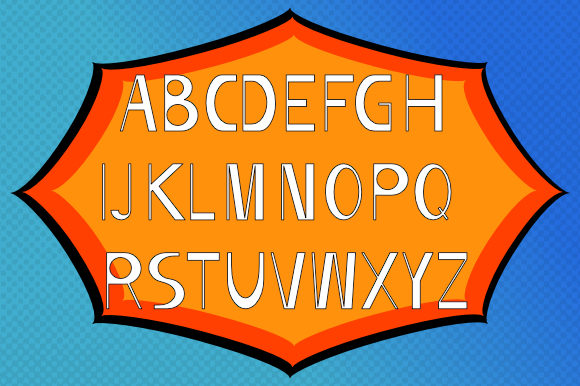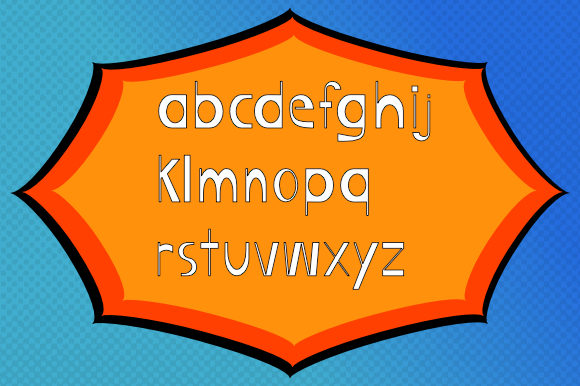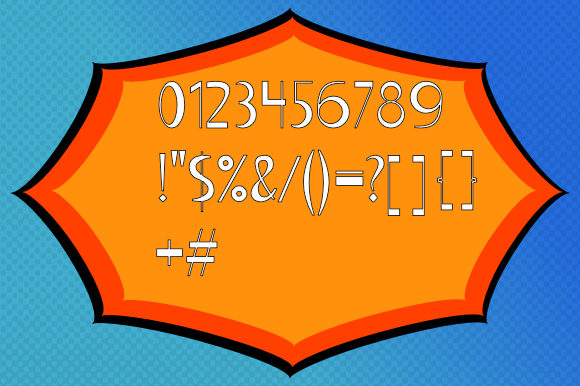
Introducing Bigboy Font: The Ultimate Display Font for Creative Projects
Are you tired of using the same old fonts for your creative projects? Look no further than Bigboy Font, a bold and fun display font that’s sure to add a unique touch to your designs. With its kooky and round charm, Bigboy Font is the perfect choice for designers and crafters looking to make a statement.
The Unique Characteristics of Bigboy Font
Bigboy Font is a one-of-a-kind display font that’s designed to stand out. Its bold and fun design makes it perfect for headlines, titles, and other display text. The font’s unique, weird feel is sure to grab attention and add a touch of personality to your designs. Whether you’re working on a logo, brochure, or website, Bigboy Font is the perfect choice for adding a bit of whimsy and flair.
Inspiration from the Quirky and Playful
The inspiration behind Bigboy Font comes from the quirky and playful world of comic books, cartoons, and children’s illustrations. The font’s designers wanted to create a font that captured the fun and carefree spirit of these creative outlets. The result is a font that’s both bold and fun, with a unique charm that’s sure to delight.
Key Features of Bigboy Font
- Bold and Fun Design: Bigboy Font is designed to make a statement, with a bold and fun design that’s sure to grab attention.
- Unique and Weird Feel: The font’s quirky and playful design makes it perfect for adding a touch of personality to your designs.
- Kooky and Round Charm: Bigboy Font’s kooky and round charm is sure to delight, adding a touch of whimsy to your designs.
- Perfect for Display Text: Bigboy Font is designed specifically for display text, making it perfect for headlines, titles, and other display text.
Using Bigboy Font in Your Designs
Bigboy Font is perfect for a wide range of design projects, from logos and brochures to websites and social media graphics. Here are a few ideas for using Bigboy Font in your designs:
- Logos and Branding: Use Bigboy Font to create a bold and memorable logo that’s sure to stand out.
- Headlines and Titles: Add a touch of personality to your headlines and titles with Bigboy Font’s unique and quirky design.
- Social Media Graphics: Use Bigboy Font to add a bit of whimsy and flair to your social media graphics, from Facebook posts to Instagram stories.
- Websites and Landing Pages: Add a touch of personality to your website or landing page with Bigboy Font’s bold and fun design.
Why Choose Bigboy Font?
With so many fonts to choose from, why choose Bigboy Font? Here are a few reasons why Bigboy Font stands out:
- Unique Design: Bigboy Font’s unique and quirky design makes it stand out from the crowd.
- High-Quality Design: The font is designed with high-quality craftsmanship, ensuring that it looks great in any design.
- Easy to Read: Despite its bold and fun design, Bigboy Font is easy to read, making it perfect for display text.
- Versatile: Bigboy Font is versatile and can be used in a wide range of design projects.
| Font Name | Bigboy Font |
| Author | Plotterfreak – Kikomin |
Bigboy Font is a bold and fun display font that’s sure to add a unique touch to your designs. With its kooky and round charm, Bigboy Font is the perfect choice for designers and crafters looking to make a statement. Whether you’re working on a logo, brochure, or website, Bigboy Font is the perfect choice for adding a bit of whimsy and flair.